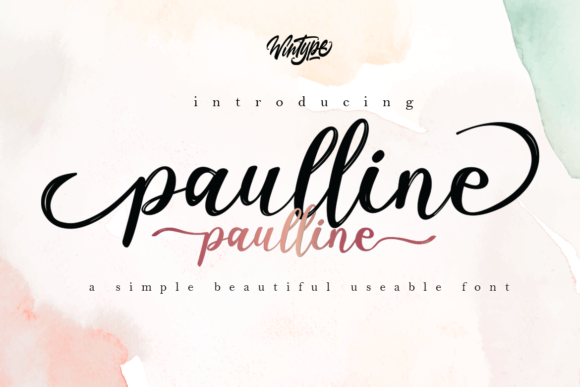
Paulline Font: Elevate Your Design with a Beautiful, Lightweight Script Font
Are you looking for a font that can add a touch of elegance and sophistication to your design projects? Look no further than Paulline, a stunning script font that is sure to turn any design into a standout. In this article, we’ll take a closer look at Paulline, its features, and how it can elevate your designs.
What is Paulline Font?
Paulline is a beautiful, lightweight script font designed to give your designs a touch of class and sophistication. Its lovely feel and elegant strokes make it perfect for a wide range of design projects, from branding and advertising to packaging and digital media.
One of the standout features of Paulline is its PUA (Private Use Area) encoding, which allows you to access all of the glyphs and swashes with ease. This means that you can easily customize your text and add unique flourishes to make your designs truly stand out.
Benefits of Using Paulline in Your Designs
So why choose Paulline for your design projects? Here are just a few benefits of using this beautiful script font:
- Elegant and sophisticated: Paulline adds a touch of class and sophistication to any design project, making it perfect for high-end brands and luxury products.
- Lightweight and easy to use: Despite its elegant appearance, Paulline is a lightweight font that is easy to use and doesn’t slow down your design workflow.
- Highly customizable: With PUA encoding, you can access all of the glyphs and swashes in Paulline, making it easy to customize your text and add unique flourishes to your designs.
- Versatile: Paulline is a versatile font that can be used in a wide range of design projects, from branding and advertising to packaging and digital media.
How to Use Paulline in Your Designs
- Use it for headlines: Paulline is perfect for headlines and titles, where its elegant strokes and swashes can really shine.
- Add a personal touch: With PUA encoding, you can add a personal touch to your text by accessing the glyphs and swashes in Paulline.
- Experiment with colors: Paulline looks great in a range of colors, from bold and bright to soft and pastel.
Design Inspiration: Examples of Paulline in Action
Still not sure how to use Paulline in your designs? Here are a few examples of how this beautiful script font can be used:
Branding and Advertising
Paulline is perfect for branding and advertising projects, where its elegant strokes and swashes can add a touch of sophistication and class.
Packaging Design
Paulline can also be used in packaging design, where its lightweight and easy-to-use design makes it perfect for labels and packaging materials.
Digital Media
Paulline can even be used in digital media, such as website headers and social media graphics, where its elegant strokes and swashes can add a touch of class and sophistication.
Technical Details: Font Specifications
Here are the technical details of Paulline font:
- Font family: Paulline
- Font style: Script
- Font weight: Lightweight
- Encoding: PUA (Private Use Area)
- Glyphs: Includes a wide range of glyphs and swashes
In conclusion, Paulline is a beautiful, lightweight script font that can add a touch of elegance and sophistication to any design project. With its PUA encoding, lightweight design, and highly customizable glyphs and swashes, Paulline is the perfect choice for designers looking to elevate their designs.